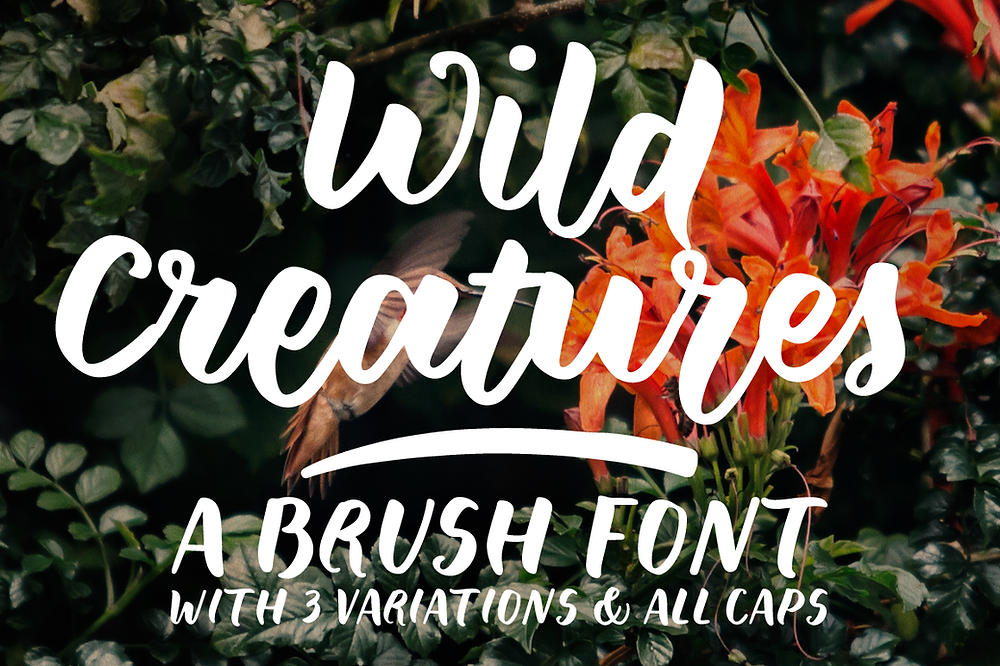
New font! Wild Creatures
Here is my new font, Wild Creatures, named and inspired by the Neko Case song. It's a brush font with three variations and an All Caps alternative. It also includes a bonus set of 26 swashes to help you decorate your texts and lettering.
Wild Creatures
Each letter has two alternative glyphs, that are programmed to alternate using contextual alternates (to varying degrees, depending on whether you're using the Wilder or Wildest version). Each font also includes initial and terminal forms for some letters, and ligatures, to make the text look more natural.
Wild Creatures